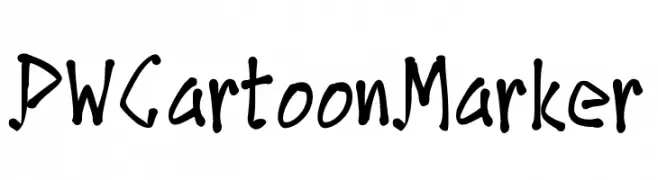
( Fonts by Bangkit Tri Setiadi )
A bold, playful font with thick outlines and a cartoonish style.
A bold, playful font with a quirky, cartoonish style.
( Fonts by Typhoon Type™ )
A playful, bold font with a cartoon-like style and textured base.
( Fonts by Letterhend Studio )
A bold, playful font with a hand-drawn, cartoonish style.
( Fonts by D K )
A bold, playful font with a hand-drawn, cartoon-like style.
( Fonts by Maulana Creative )
A bold, playful font with a cartoonish and informal style.
( Fonts by Modestype Studio )
A bold, playful font with a cartoon-like style and rounded characters.
( Fonts by Pizzadude )
A playful, bold font with quirky, exaggerated shapes and a cartoonish style.
( Fonts by Modestype Studio )
A playful, bold font with rounded edges and a cartoonish style.
( Fonts by Mans Greback )
A bold, outlined font with a playful, cartoon-like style.
A bold, playful font with thick outlines and a cartoonish style.
A bold, hand-drawn font with a playful and cartoonish style.
( Fonts by Pinisiart )
A bold, playful font with a hand-drawn, cartoonish style.
( Fonts by Muhammad Yafinuha )
A bold, playful font with thick, rounded strokes and a cartoonish style.
( Fonts by Typefactoryco )
A bold, playful font with cartoonish, uneven strokes and a lively appearance.
( Fonts by LyonsType )
A bold, playful font with a cartoonish style and rounded characters.
( Fonts by FG Studios )
A playful, bold font with rounded, thick strokes and a cartoonish style.
( Fonts by Moch Zaenal Abidin )
A bold, playful font with thick, rounded strokes and a cartoonish style.
( Fonts by Aryel Filipe )
A bold, cartoonish font with playful and exaggerated curves.
( Fonts by peep peep )
A playful, hand-drawn font with bold, irregular characters and a cartoonish style.
( Fonts by Jadatype )
A playful, bold font with a unique shadow effect and cartoon-like style.
A playful, bold, hand-drawn font with thick outlines and a cartoonish style.
( Fonts by MJType )
A playful, bold font with rounded, bubble-like characters ideal for fun and whimsical designs.
( Fonts by The Docallisme )
A playful, bold font with a 3D cartoon style and thick outlines.
( Fonts by FontKawaiiCo )
A bold, rounded, and playful font with a cartoonish style.
( Fonts by philipwesoloski )
A playful, bold, and cartoonish font with thick outlines and irregular shapes.
A playful, bold font with a whimsical, cartoonish style.
A playful, bold font with rounded, cartoonish characters.
( Fonts by Mans Greback )
A bold, playful font with a whimsical, cartoonish style.
( Fonts by Mans Greback )
A playful, cartoonish font with bold outlines and a 3D effect.
A playful, bold font with a hand-drawn, cartoonish style.
A bold, playful font with rounded, cartoonish characters.
( Fonts by RaisProject )
A bold, playful font with quirky, cartoonish character shapes.
A bold, playful font with a hand-drawn, cartoon-like style.